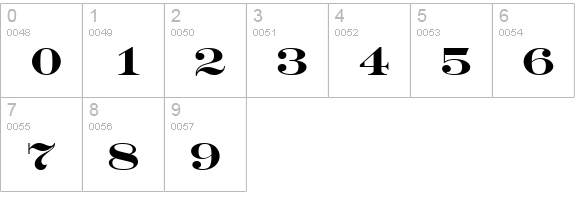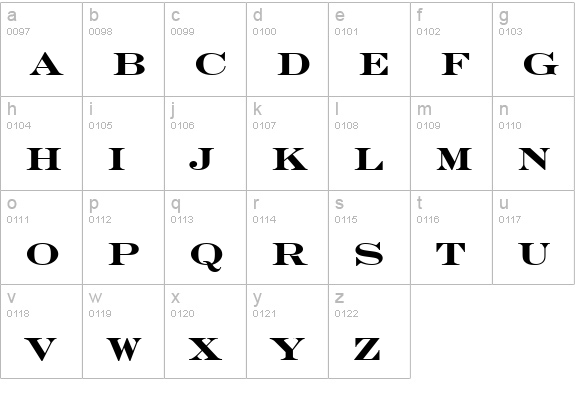
EngraversD Bold Font Details
EngraversD Bold is a strong, high-contrast variant in the EngraversD typeface family \xE2\x80\x94 well suited to headlines, attention-grabbing titles, and strong calls-to-action.
EngraversD Bold font is a sleek and modern typeface that exudes sophistication and elegance. Its sharp lines and clean curves make it perfect for projects that require a touch of class and professionalism. The bold weight of this font commands attention and adds a strong presence to any design. What sets EngraversD Bold font apart is not only its impeccable design, but also the fact that it is available for free download at FontsMarket.com. This means that you can access this high-quality font without any cost, making it a valuable addition to your font library. Whether you're working on a branding project, a poster design, or any other creative endeavor, EngraversD Bold font is sure to elevate your work and leave a lasting impression. Download it today and start using this beautiful font in your projects!